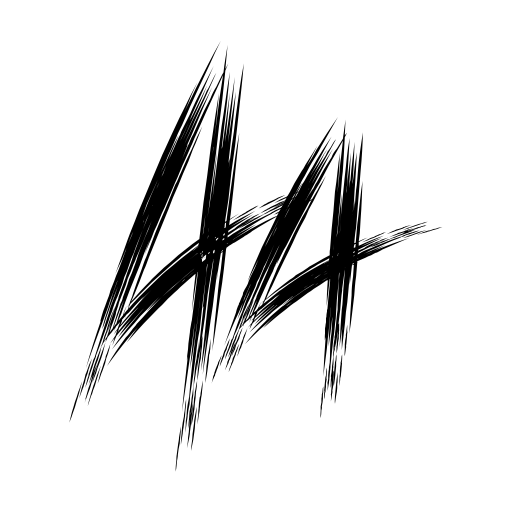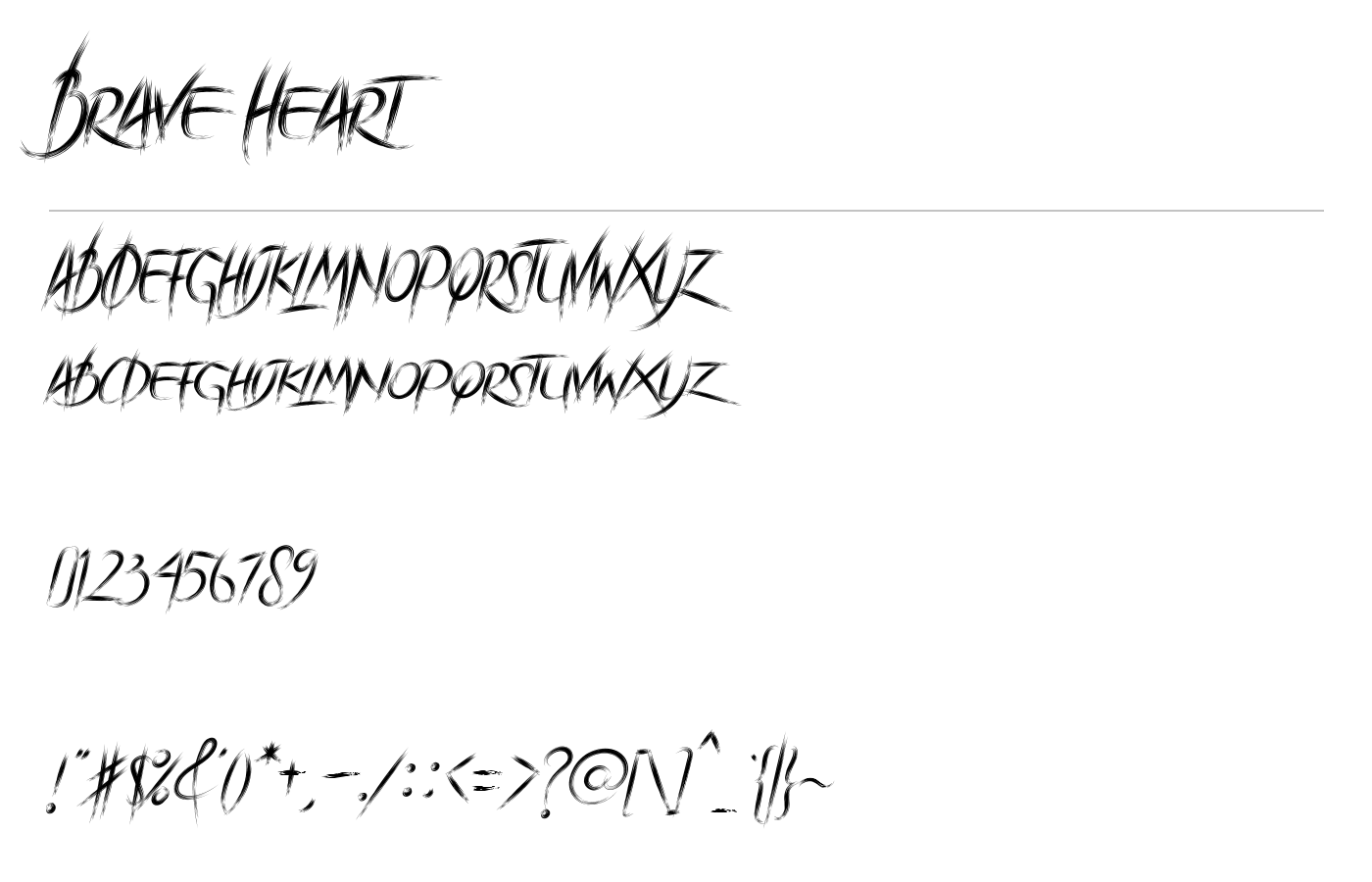
Brave Heart is a highly expressive, brush-script style font with sharp, dynamic strokes that give it an energetic and edgy personality. Its uneven, textured letterforms and slanted posture create a sense of movement and intensity, making it perfect for bold headlines, logos, or artistic projects that want to convey passion and creativity. This font stands out in designs needing a rebellious, daring vibe rather than traditional readability or formal elegance.
Brave Heart Font
About Brave Heart Font
| Font family | Brave Heart Font |
| Designer | Motokiwo |